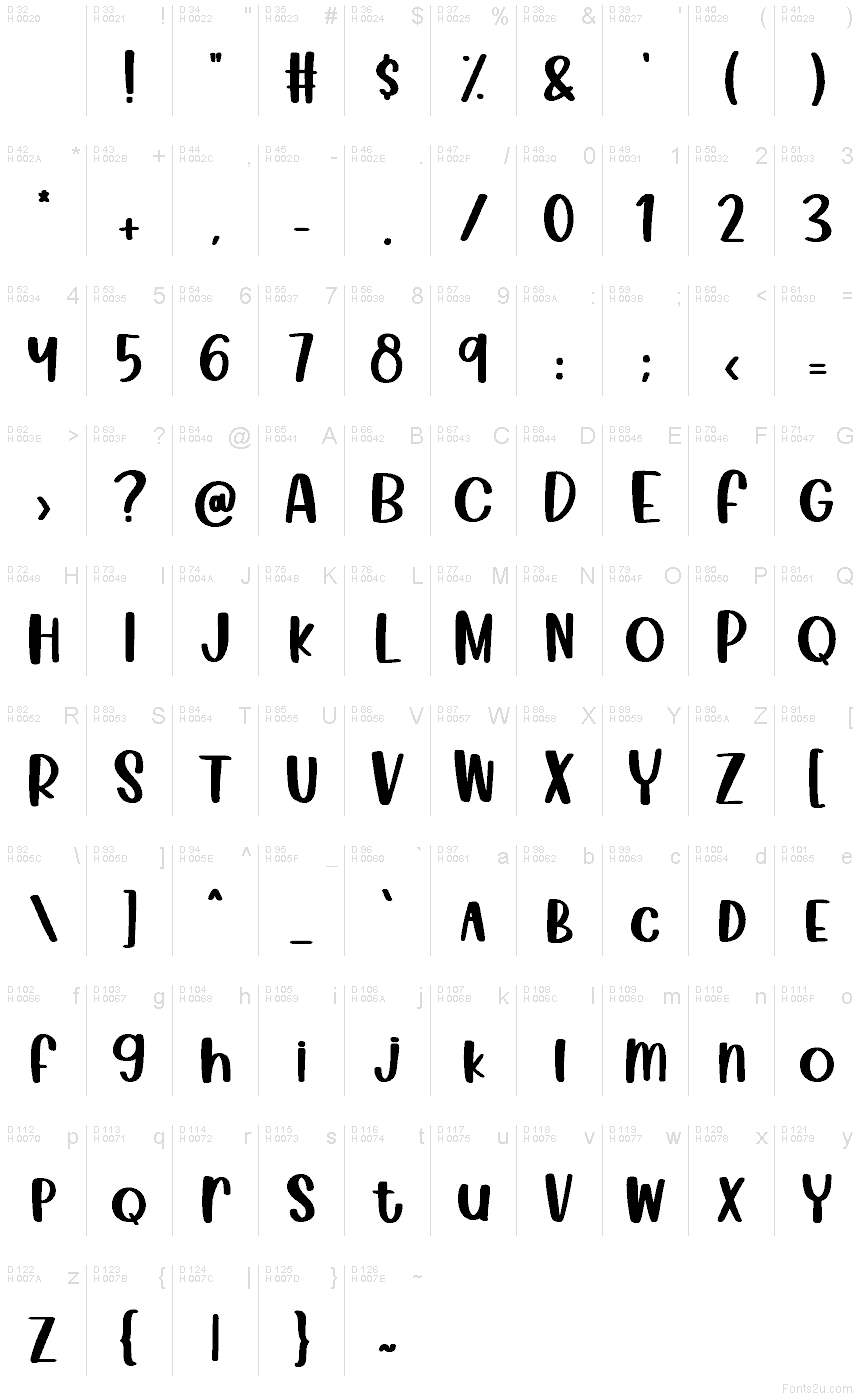
White Daisy
White Daisy font, designed by Dm Letter Studio - Dimas Prasetyo, is a cartoon-style display type with a modern aesthetic. It carries a whimsical appearance and informal friendly tone suitable for casual presentations. The edges of this free font are sleek, making the overall look both condensed and tidy.
Make use of White Daisy to design business cards, social media posts or display banners. Create logos with its general outline style or incorporate it into branding elements like labels and packaging. Other platforms on which this can be used are printed ads, websites and mobile applications.